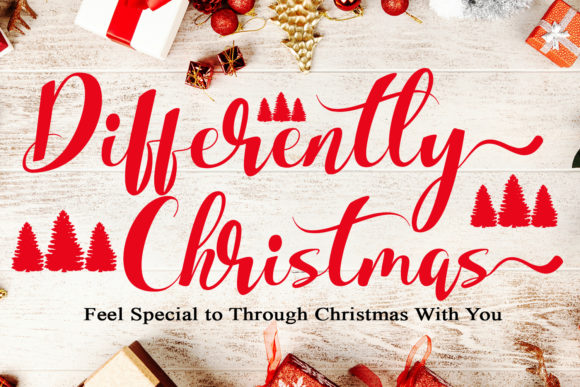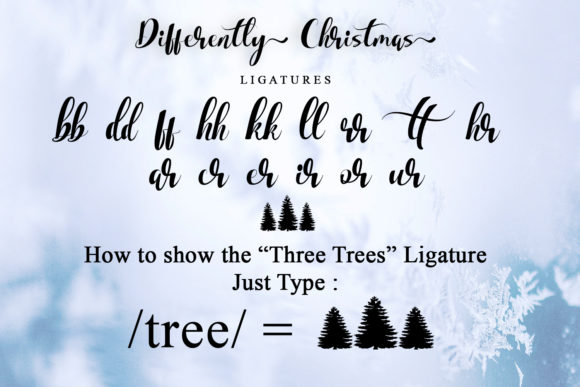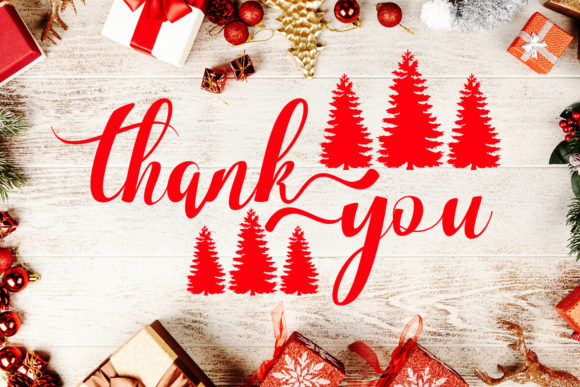
About Differently Christmas Font
Differently Christmas is a delicate, fresh, rich, and elegant handwritten font. It is ideal for holiday-themed greeting cards and for any crafting project that requires a warm touch. It is PUA encoded which means you can access all of the glyphs and swashes with ease!